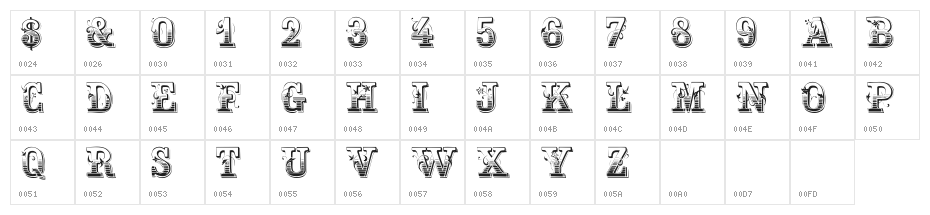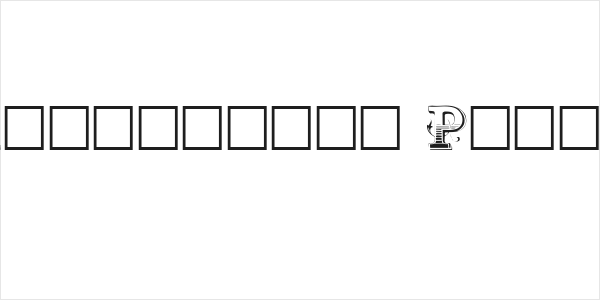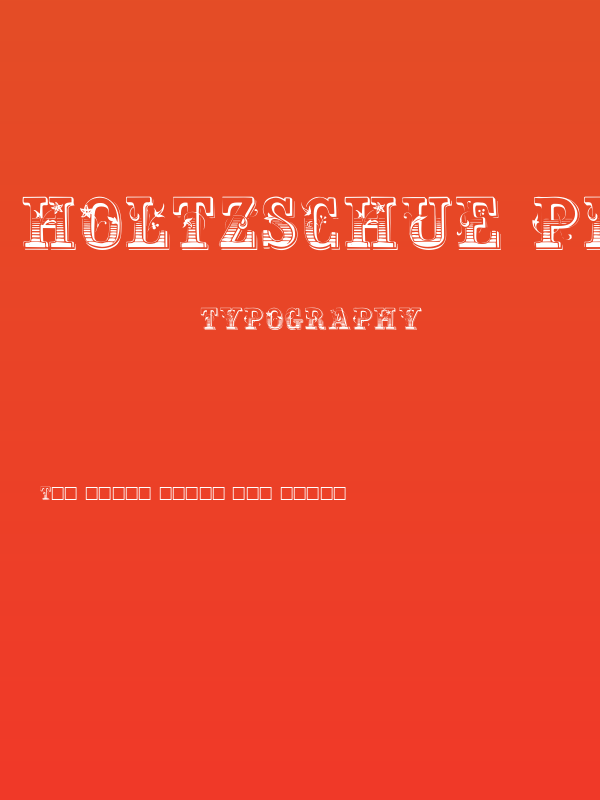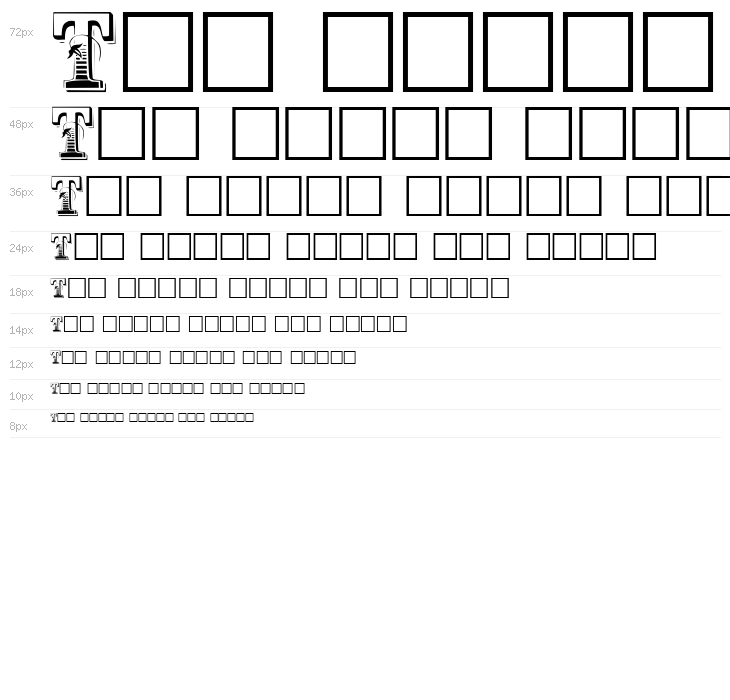
Holtzschue Plain Font
Holtzschue Plain Description
This font features a bold and decorative style with intricate detailing within each character. The uppercase letters are adorned with horizontal lines and shadow effects, giving them a three-dimensional appearance. The numbers follow the same decorative pattern, making them stand out with a unique flair. The font's design is reminiscent of vintage signage or old-fashioned posters, characterized by its ornate and eye-catching elements. The overall look is both classic and playful, making it suitable for projects that require a touch of nostalgia and creativity.
| Proposed Projects | Ideal for vintage-themed posters, signage, branding, and creative projects that require a standout, decorative typeface. |